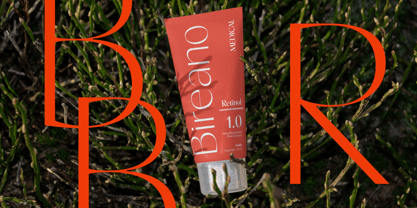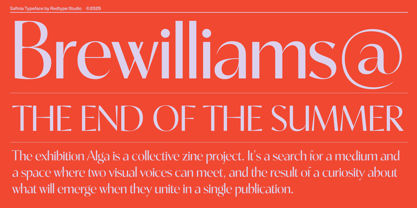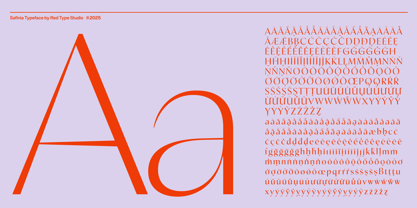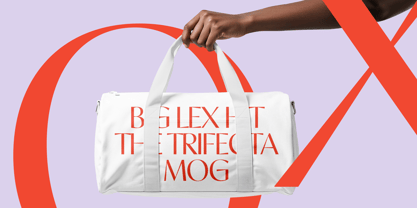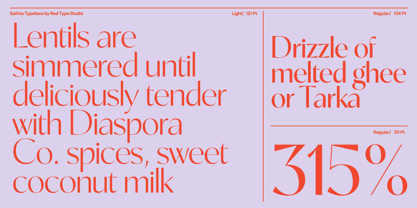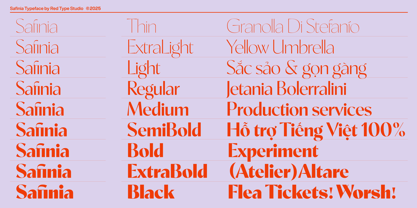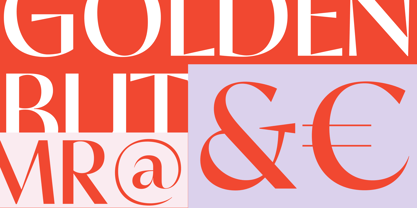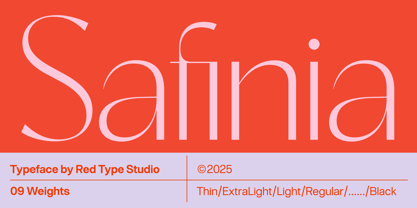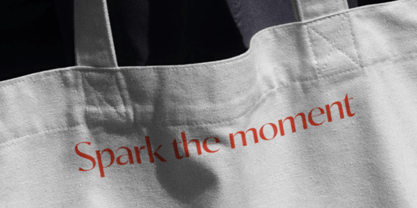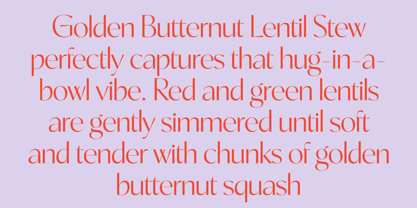
Safinia
The Safinia Font Family was designed by Quang Ngo and published by Red Type. Safinia contains 9 styles and family package options. More about this family
Gracefully curved and meticulously kerned, Safiana is a san-serif font family with a tasteful flared touch. It slides from whisper-light headlines to striking, high-impact display, blending the feel of editorial and contemporary in equal measure. With extended Latin coverage, including full Vietnamese, this font lets your message travel visa-free.
Refined beauty without sacrificing clarity is what its use should be, and actually is. Open counters, smart spacing, and careful kerning keep it crisp at size and luminous at scale.